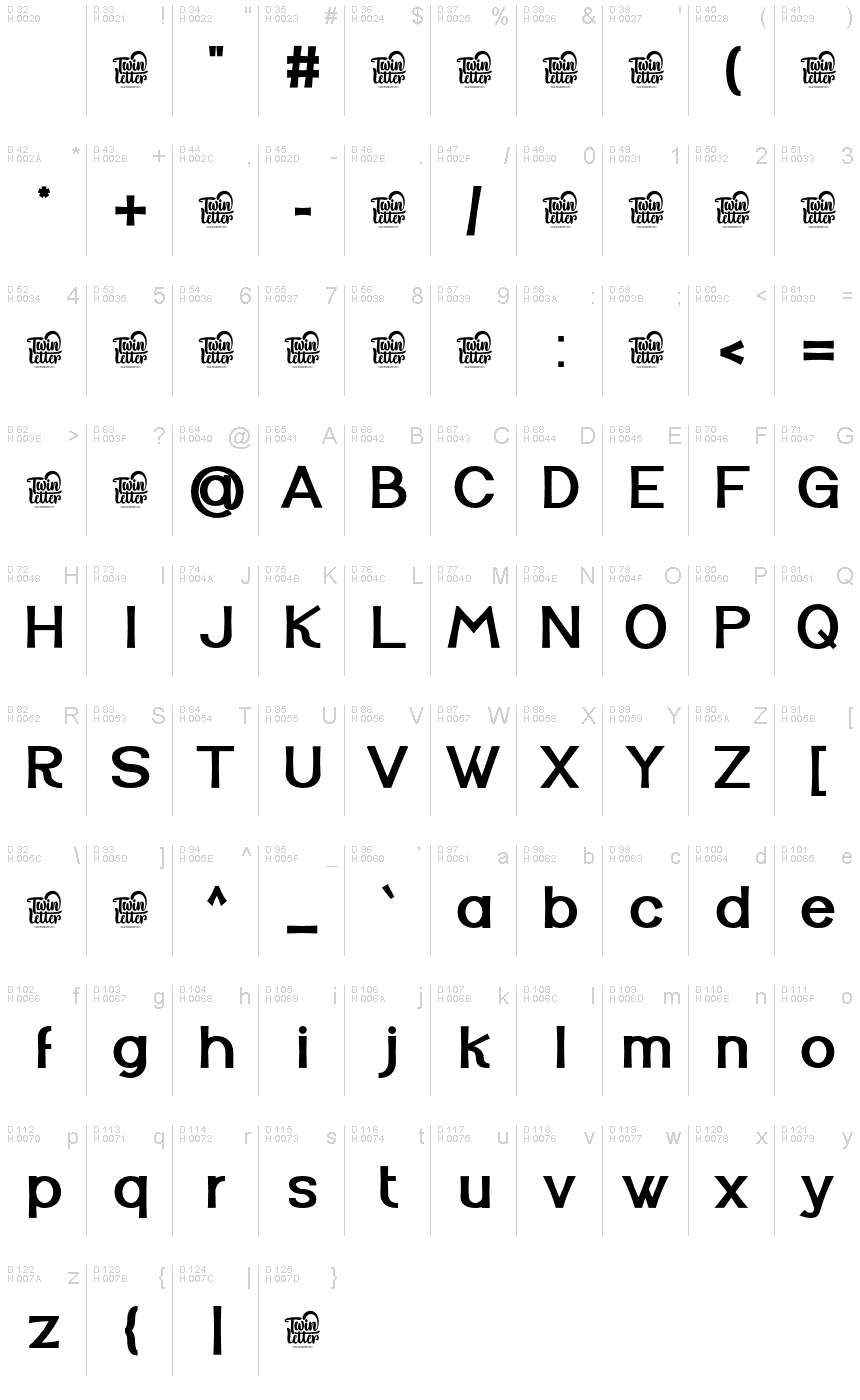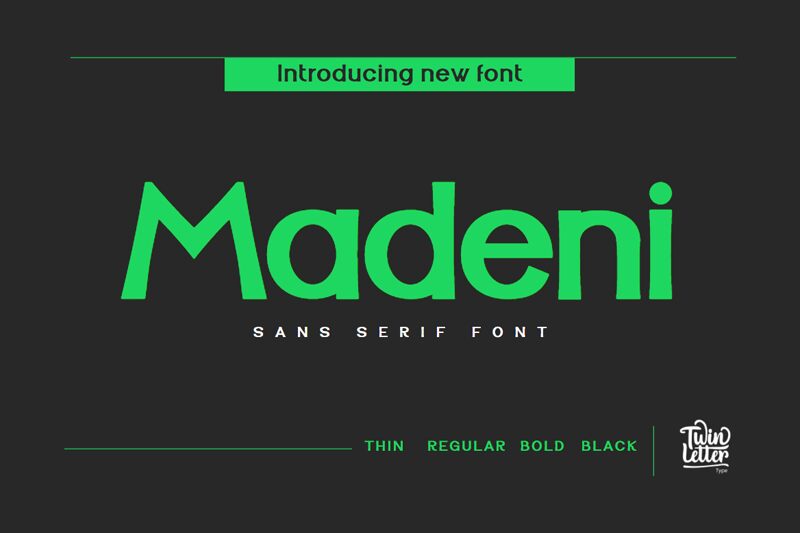
MadeniBlack
Meet Madeni Black, the sleek and sophisticated sans serif font from twinletter. With its semi-expanded width and clean lines, this font exudes confidence and professionalism. Perfect for modern branding projects or elegant website designs, Madeni Black is sure to make a bold statement. Its versatility also makes it suitable for editorial layouts or eye-catching posters. Elevate your designs with Madeni Black's sleek and timeless style that will leave a lasting impression on your audience.
Madeni Black